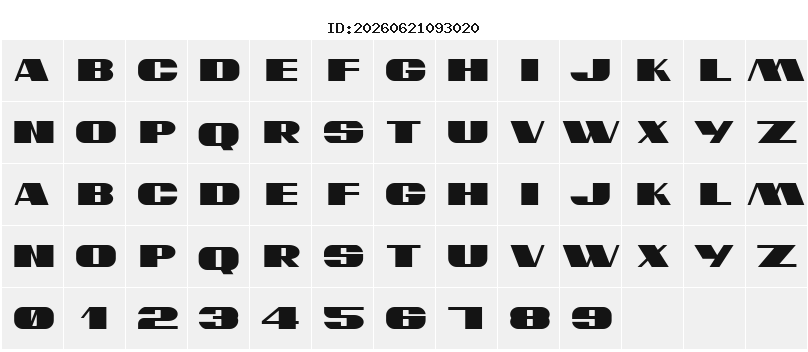
OTF® Glusp Preview
• Font Name: OTF® Glusp
• Full Font Name: OTF® Glusp Bold
• Designer: Obys Type Foundry
• Manufacturer: Obys Type Foundry
About OTF® Glusp.ttf
OTF® Glusp.ttf is a modern, elegant sans-serif font designed for ultimate readability and visual harmony. Perfect for branding, headlines, web design, and print materials.